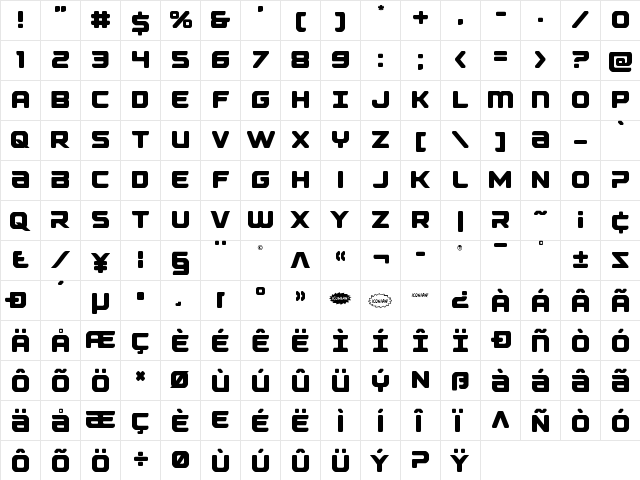
Falcon Punch Straight Regular
Design Context for Falcon Punch Straight Typeface
Falcon Punch Straight takes a measured approach to typography — its balanced proportions and neutral character make it a reliable workhorse for both digital and print work.
Pro Tip: Use Falcon Punch Straight in both headline and body roles to test its range before committing to a single application.